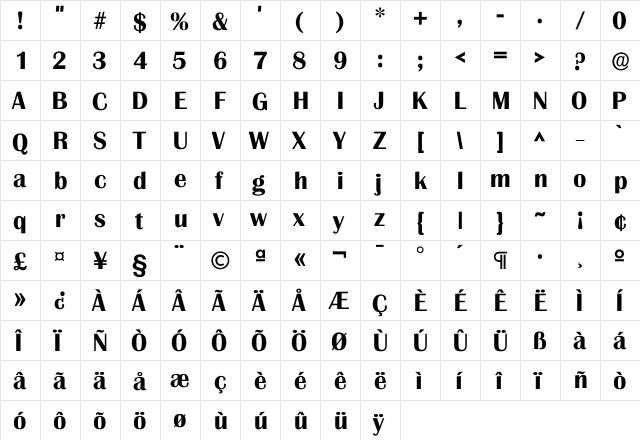
Grnoble Bold
Design Context for Grnoble Typeface
Grnoble offers clean, dependable letterforms without strong stylistic allegiance, making it a practical choice for designers who need flexibility. Its bold stroke weight gives it real presence on the page.